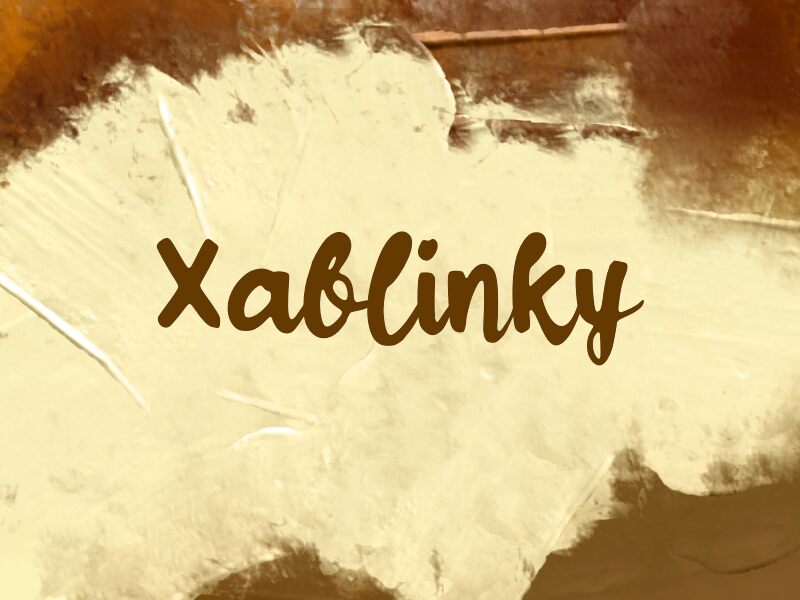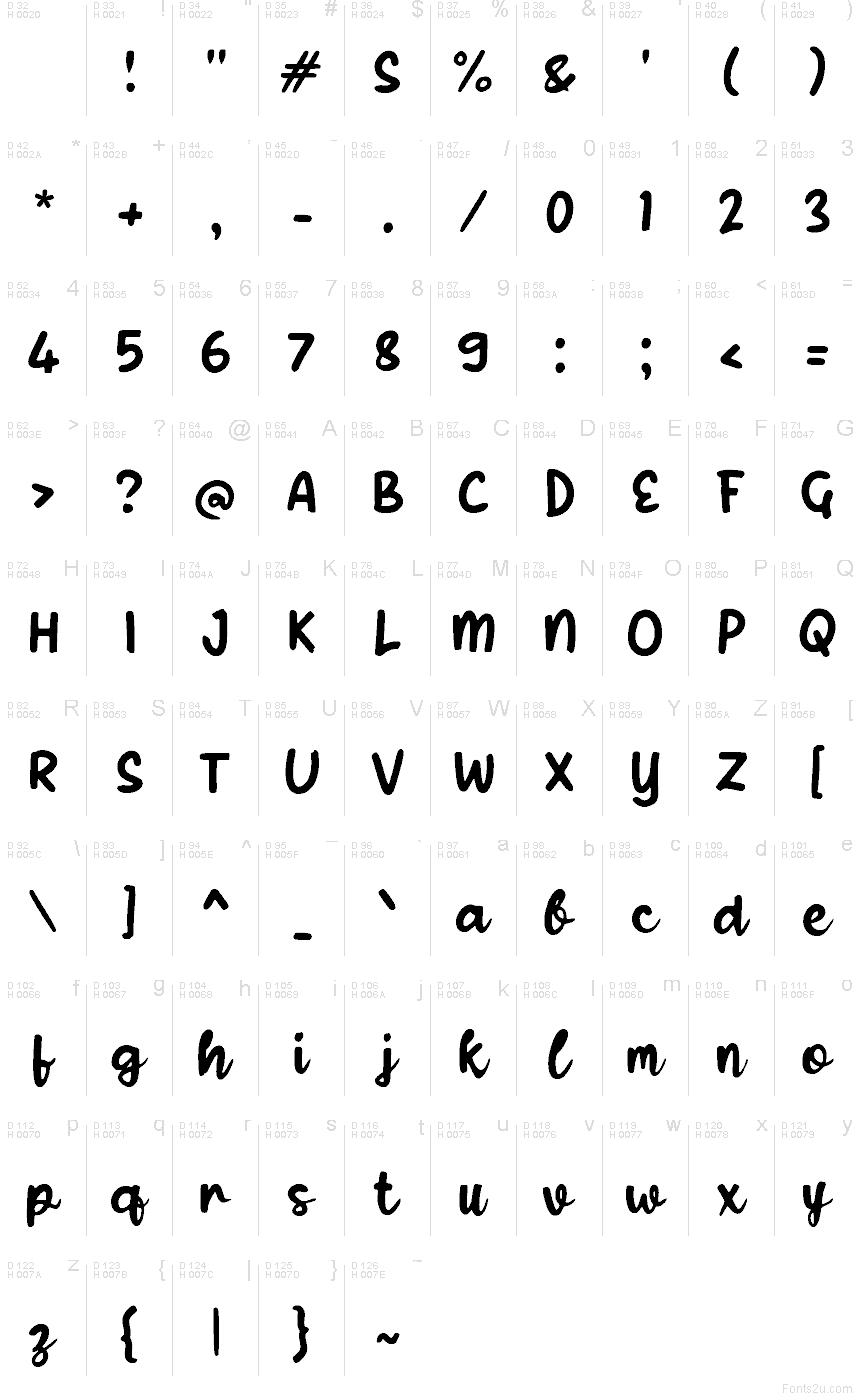
Xablinky
Xablinky font by wepfont.com is a free brush script typeface with thick, inky strokes and easygoing, connected letters. It feels like it was painted in one confident sweep—smooth curves, rounded shapes, and cozy spacing that keeps every word feeling friendly and bold. There’s a casual, hand-lettered charm here that makes text look like a personal note rather than rigid typography.
Using Xablinky, this free font shines on social media graphics, DIY-style logos, quote posts, stickers, product packaging, greeting cards, and playful invitations. The weighty brush texture holds up beautifully at larger sizes, grabbing attention without looking messy or chaotic. For a simple pairing trick, set headlines in Xablinky and support text in a clean, light sans serif to let the brushy personality stay center stage.